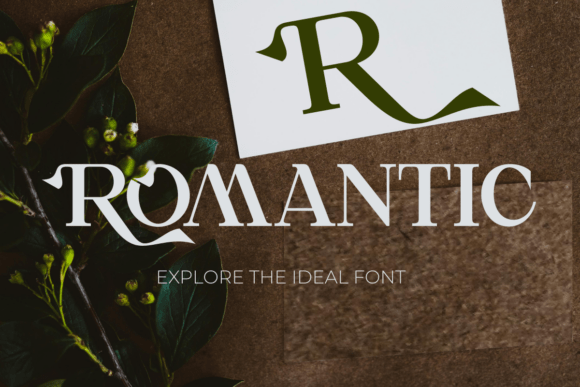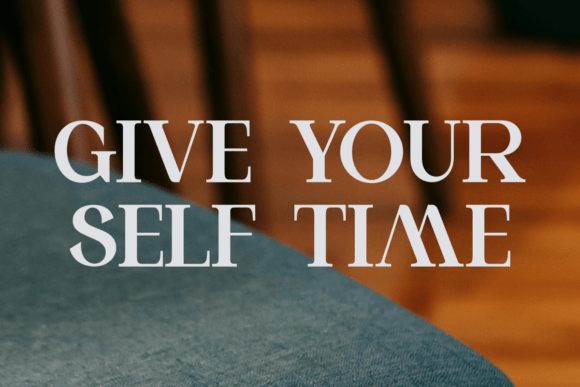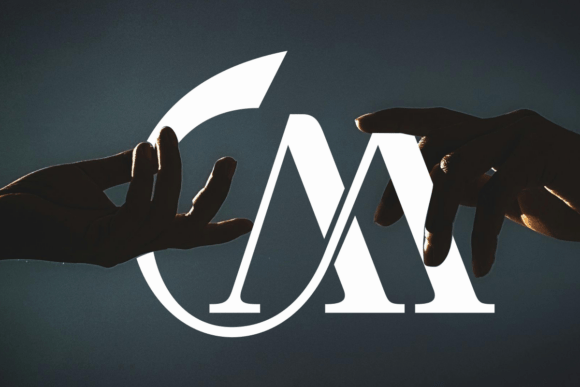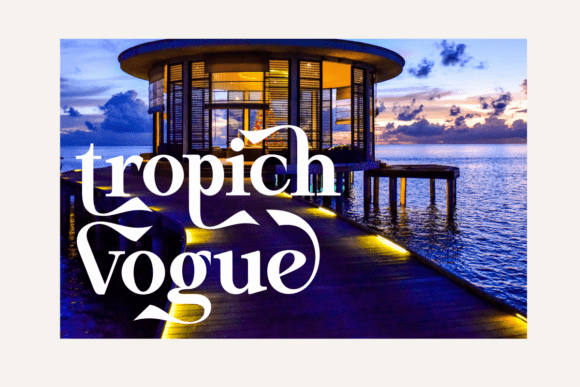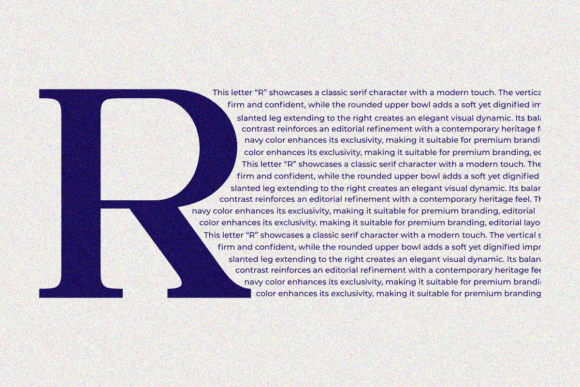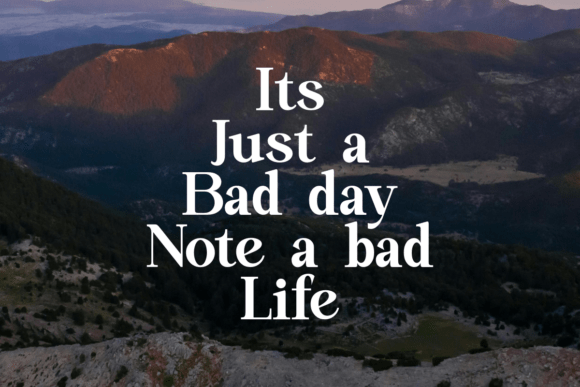
Introduction to Marvello Roman Font
As a designer, you know the struggle of finding the perfect font for your creative project. The perfect font can make or break the visual identity of your design, and that’s why we’re excited to introduce you to the Marvello Roman Font – a game-changing serif typeface that’s about to elevate your design to the next level. Imagine you’re working on a high-end magazine cover, and you need a font that exudes luxury and sophistication. That’s where Marvello Roman Font comes in – a design resource that’s sure to impress.
With its balanced letter structures, subtle thick-thin contrast, and sharp yet clean serif details, the Marvello Roman Font delivers a strong, luxurious editorial presence that’s perfect for magazines, premium branding, book titles, fashion, and visual identities that demand an elegant and confident tone. And the best part? It’s available for free download, making it an accessible design resource for designers of all levels.
Whether you’re working on a freelance project or a high-profile client, the Marvello Roman Font is a valuable addition to your design toolkit. Its transparent background and high-quality design make it a versatile choice for any creative project, from fashion and lifestyle to luxury and fine art. So why wait? Discover the power of the Marvello Roman Font and take your design to new heights.
Key Features of Marvello Roman Font
- Features a unique, elegant design with a transparent background
- Designed to be highly legible at various font sizes and resolutions
Honest Review: Marvello Roman Font
As a designer, I’m always on the lookout for high-quality fonts to enhance my creative projects. Recently, I stumbled upon the Marvello Roman Font, and I must say it’s been a great addition to my design resource library.
Here are some things that work well with the Marvello Roman Font:
- ✨ Elegant and sophisticated design aesthetic
- ✨ Highly legible and easy to read
- ✨ Supports a transparent background, making it perfect for creating beautiful designs
- ⚠️ Some users may find the font too ornate for certain design projects
Overall, I’m really impressed with the Marvello Roman Font. It’s a great choice for designers looking to add a touch of sophistication to their creative projects. While it may have some limitations, the free download option makes it an excellent resource for anyone looking to experiment with new font styles.
Tips for Getting the Most Out of Marvello Roman Font
Experiment with different font sizes and styles to create visual interest in your design. Use the transparent background feature to create a cohesive look with other design elements. The Marvello Roman Font is a high-quality design resource that can elevate your creative project.
The Marvello Roman Font is ideal for use in business cards, posters, and other marketing materials. Its high-quality design and versatility make it a valuable resource for any creative project. Download the Marvello Roman Font today and start creating your next design masterpiece.